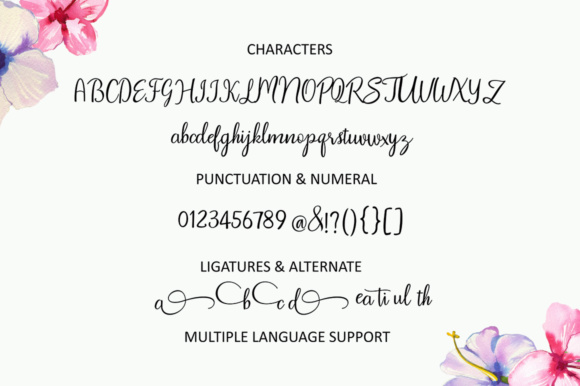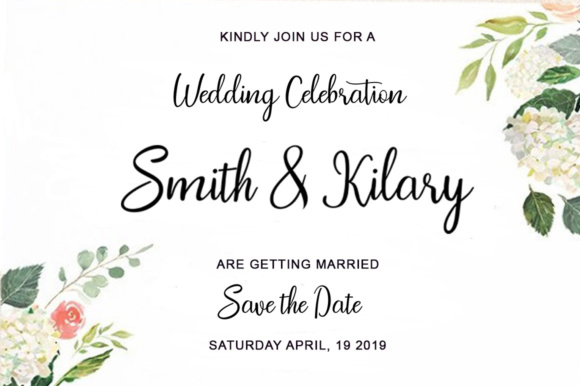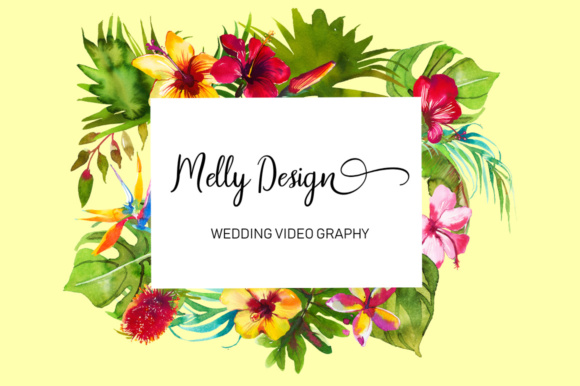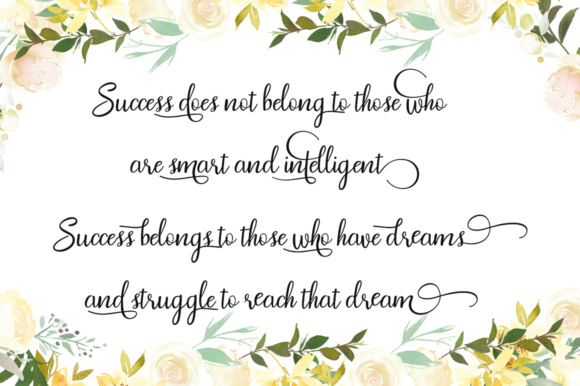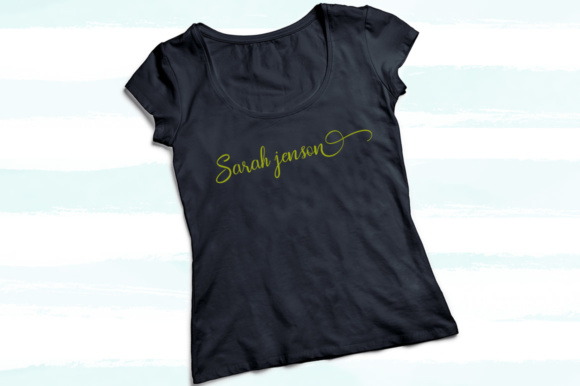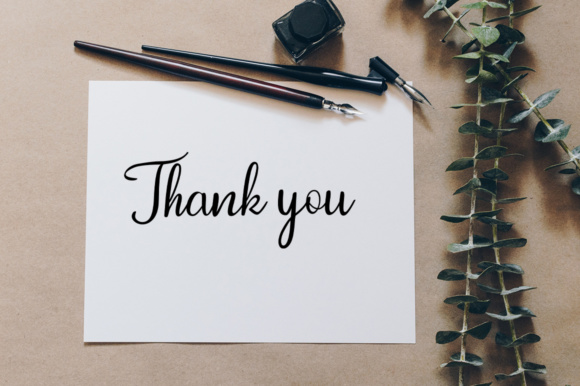
Beautiful Font
Beautiful is a soft and feminine script font, ideal for use in a wide range of projects. This calligraphy font is a stunner, and works for a ton of different projects.